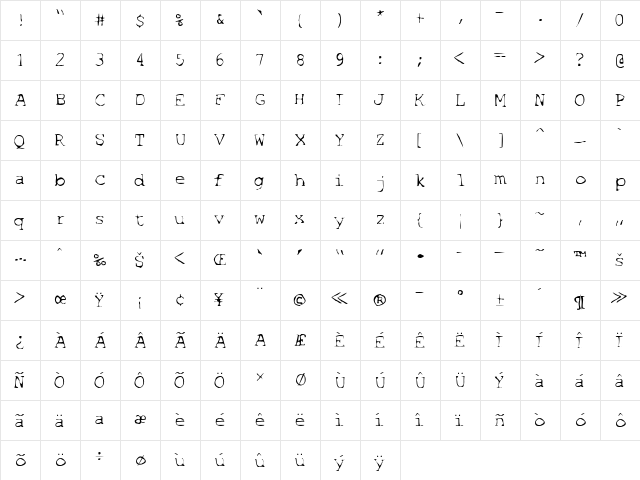
SF Espionage Light Regular
Design Context for SF Espionage Light Typeface
SF Espionage Light takes a measured approach to typography — its balanced proportions and neutral character make it a reliable workhorse for both digital and print work. Its slender proportions lend an understated elegance to any composition.